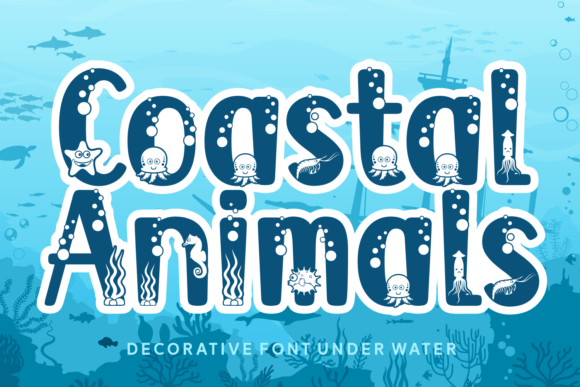
Welcome to the world of Coastal Animals Font - the best font for all your beachy design needs! This adorable decorative font, created by Creative Fabrica Fonts, is inspired by the charming sea life and is sure to make your designs stand out.
Coastal Animals Font is the perfect choice for all your ocean-related design projects, from posters to apparel and everything in between. Its cute and playful style is sure to capture the hearts of both kids and adults alike, making it a great option for all your designs that require a touch of whimsy.
With its PUA encoding, Coastal Animals Font is incredibly easy to use. Access all the glyphs with ease and create unique designs that are truly one-of-a-kind. Whether you're designing a logo for a beachside business or creating invitations for a seaside wedding, Coastal Animals Font is the perfect choice.
This font is not just a collection of letters, it's a story of the sea - each character representing a unique piece of the ocean's ecosystem. Let the Coastal Animals Font take you on a journey to the depths of the ocean, where you can explore the beauty of marine life through the lens of design.
So why settle for boring, generic fonts when you can bring your designs to life with Coastal Animals Font? Choose this font for its unique style, ease of use, and the ability to tell a story with your designs.